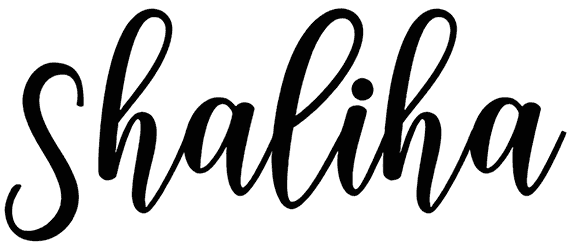
Shaliha Font
Looking at this script font to achieve all artistic, natural vibes possible from handmade design. Like an outstanding one to embellish your posters, titles, banners, logo, and the like, right? Shaliha font looks like a miracle does a good job on yours, be sure.